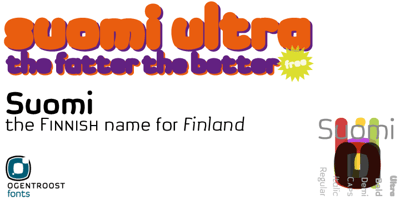
Ogentroost Collection
Ogentroost is the typographic arm of
' Klaar Ontwerpen Design Consultancy based in the Netherlands. Klaar can be translated as clear, open, clean, transparent and pure, all bywords for Corvers' brand of (typo)graphic communication which employs minimal means for maximum effect. A focus on quality, not quantity. Ogentroost's first OpenType release was inspired by a visit to the Scandinavian land of forests and lakes. The Suomi type family, says Corvers, "is like bent wooden furniture, which they happen to have a lot of. The squared-off round shape captures the paradox I found in Finland, severe around the edges, but relaxed at